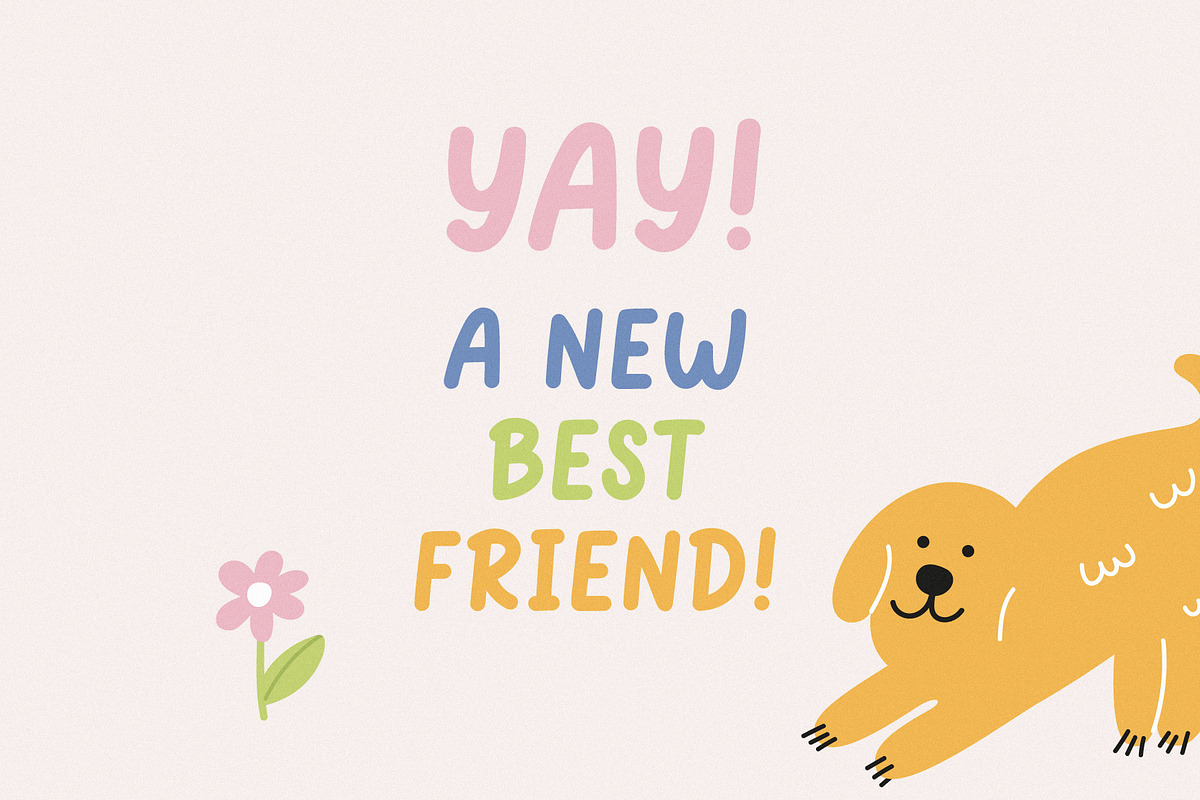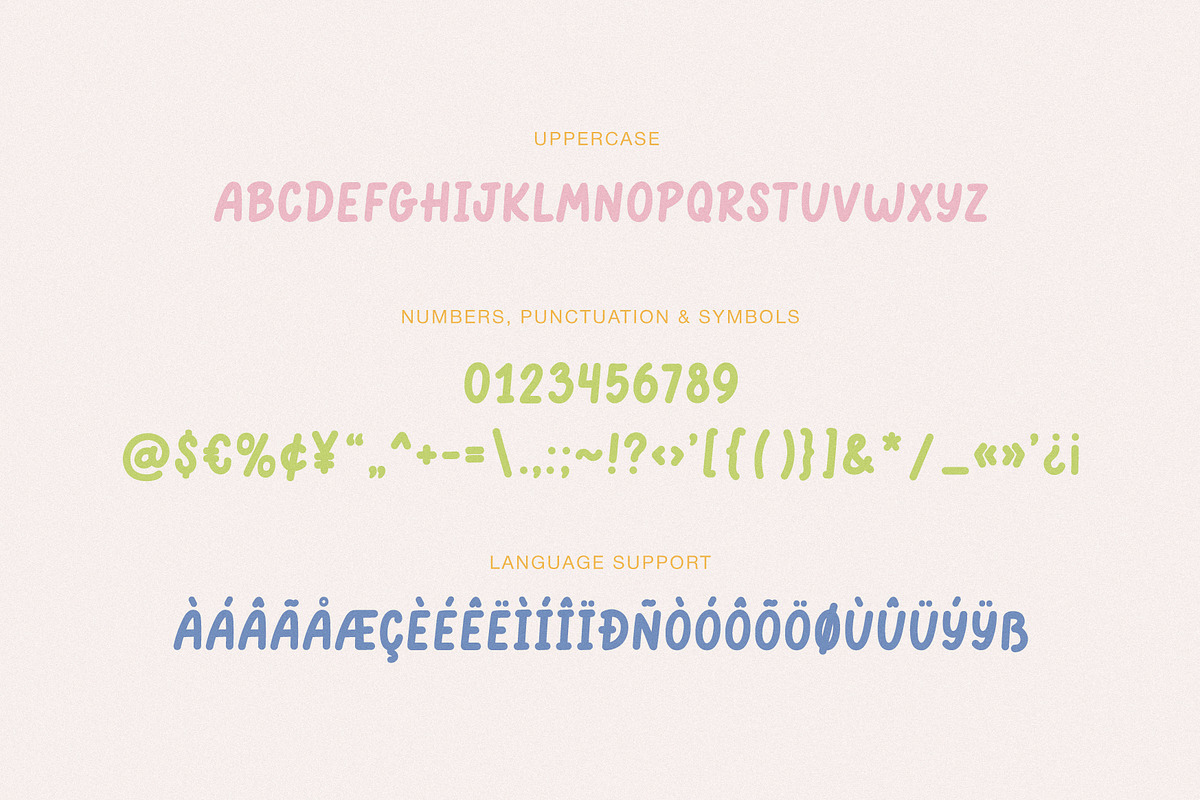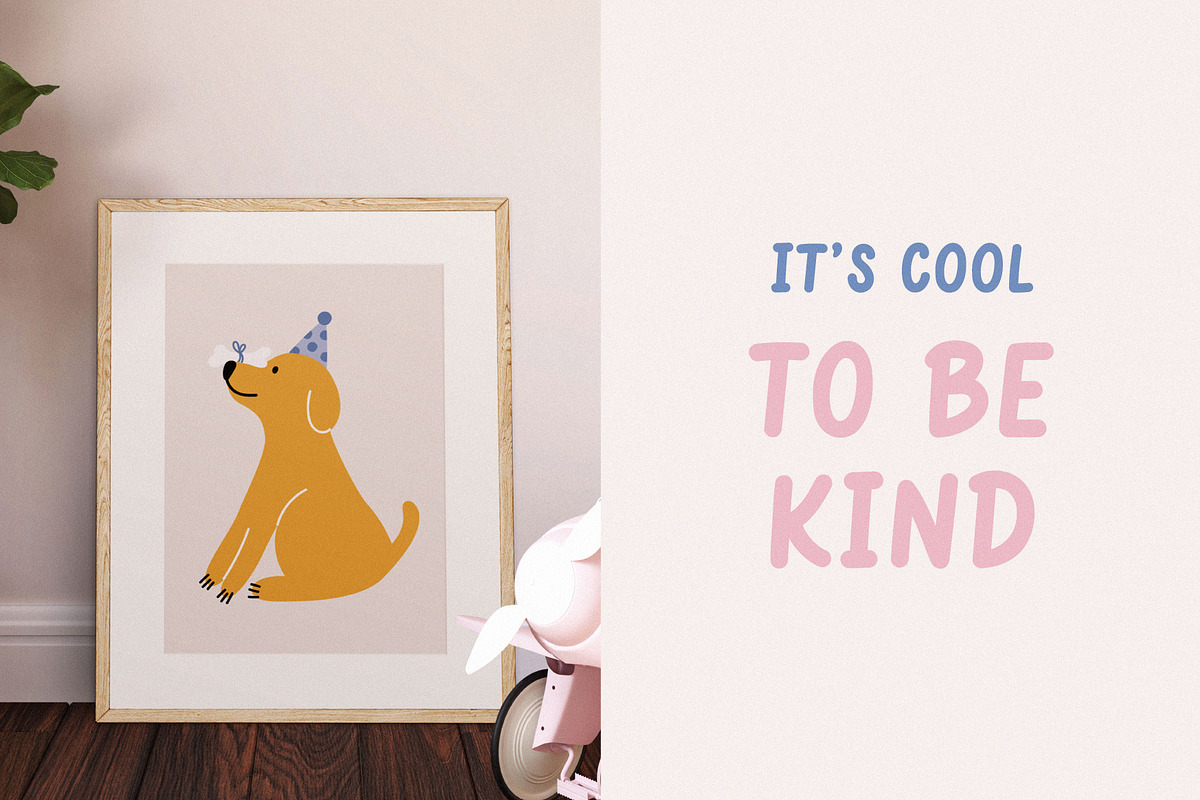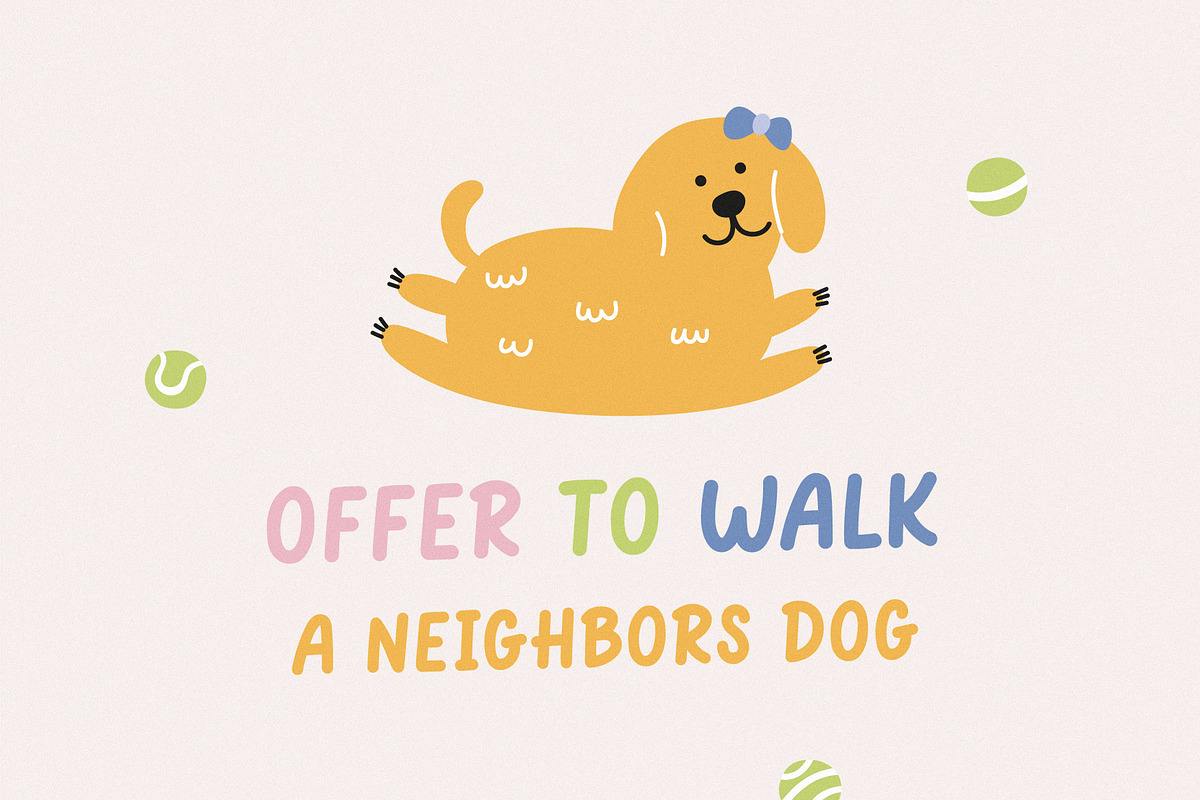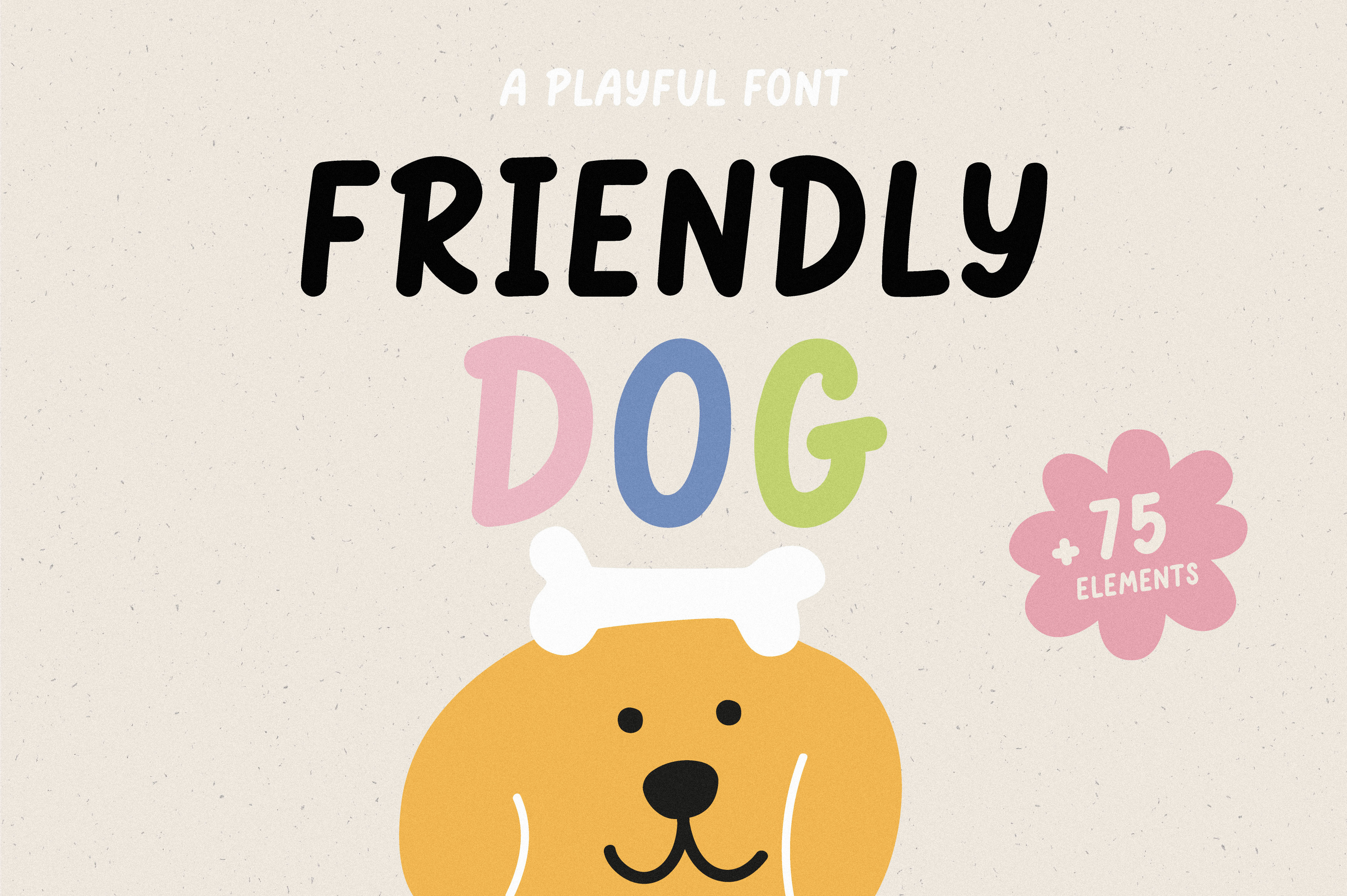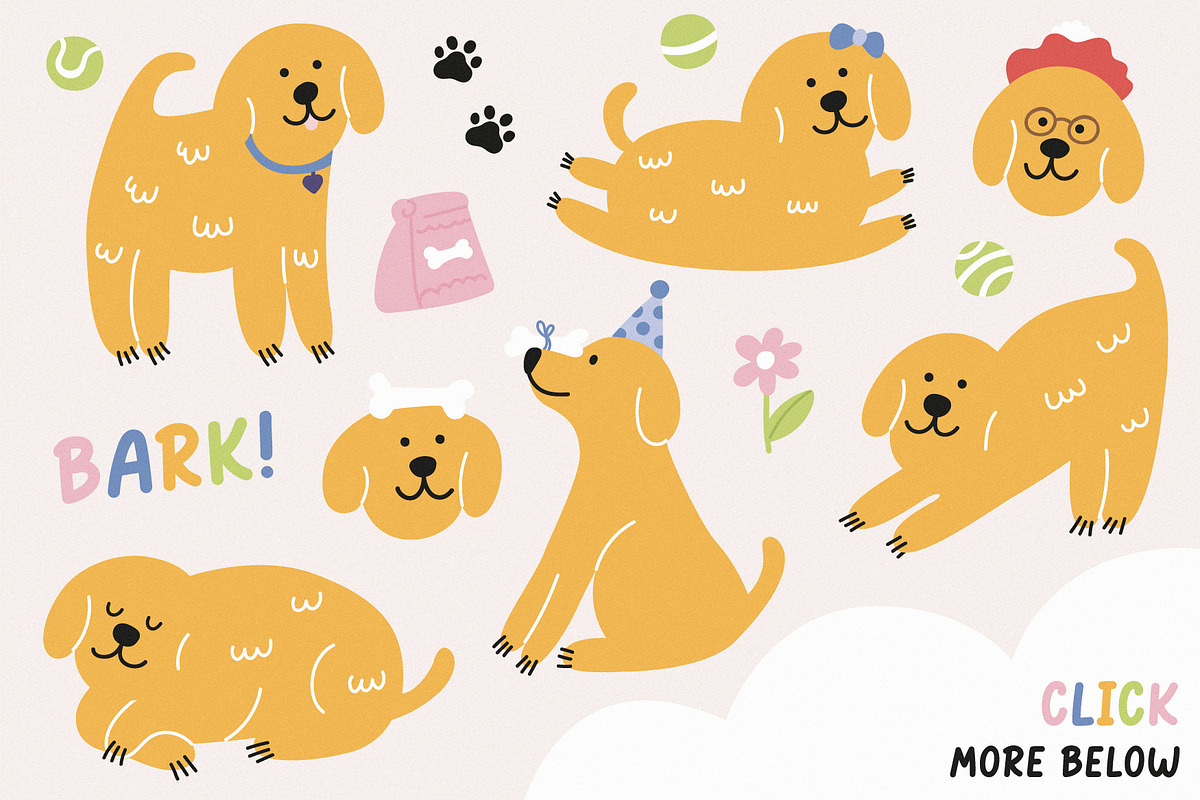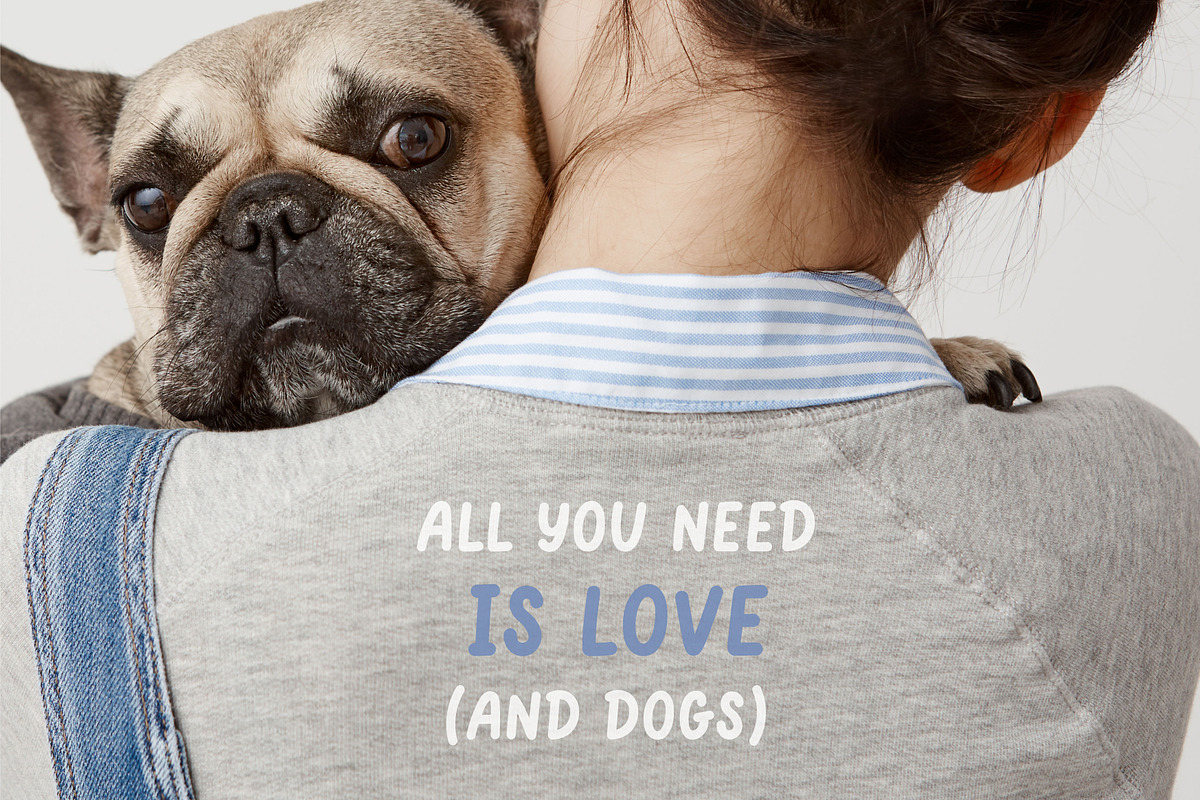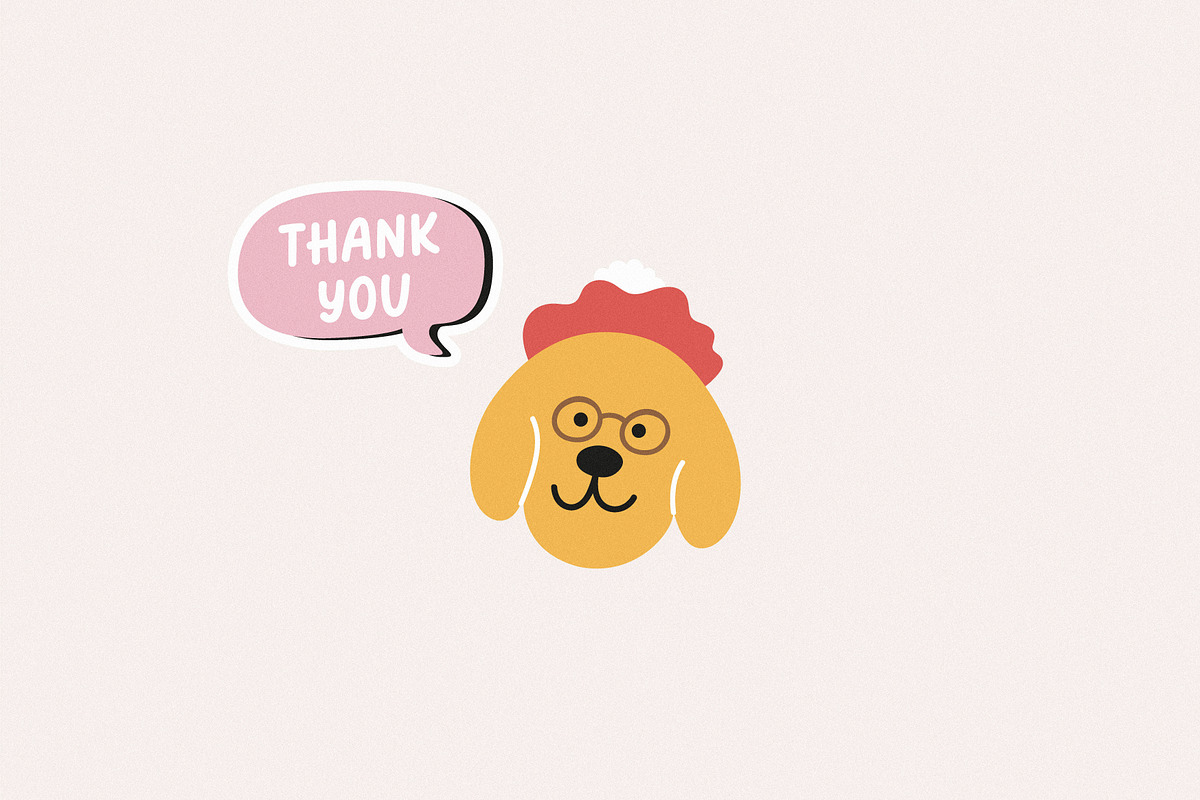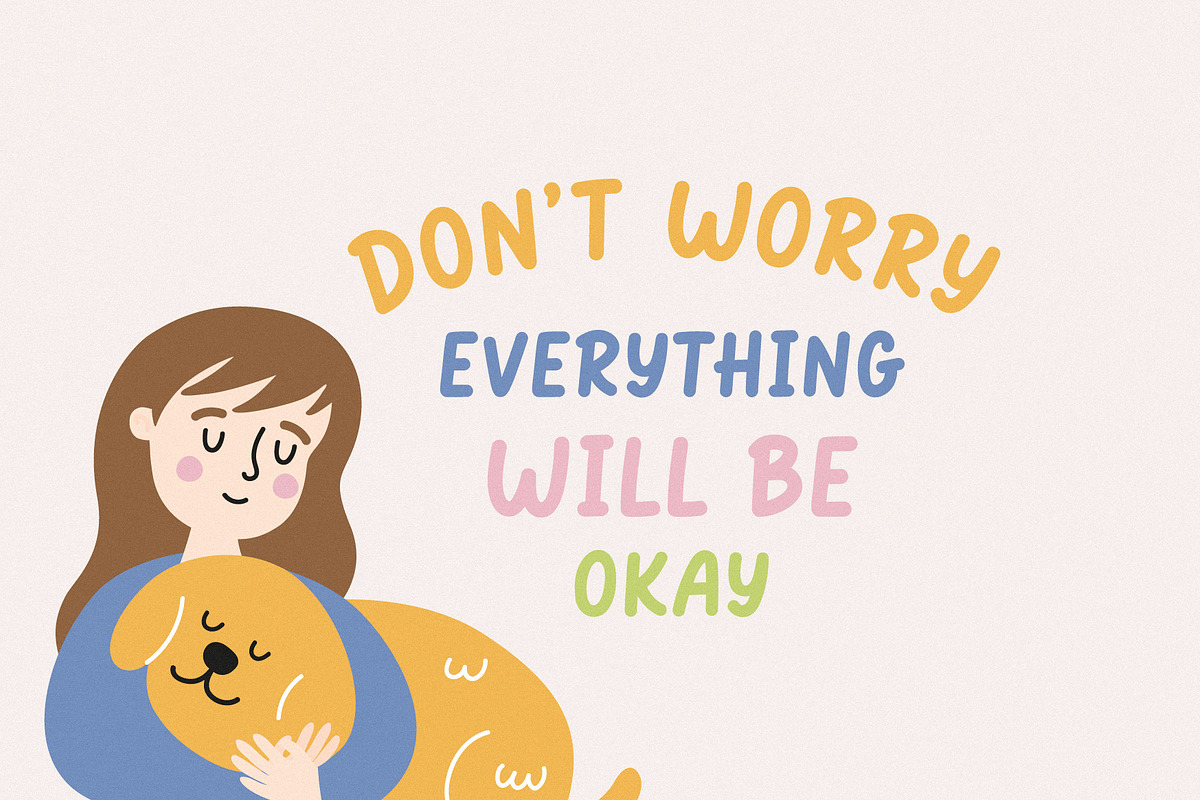
Friendly dog | Playful font
Use for logos, quotes, invitations, greeting cards, journals, posters, baby clothing and more. This font will make your design looks great and fun!